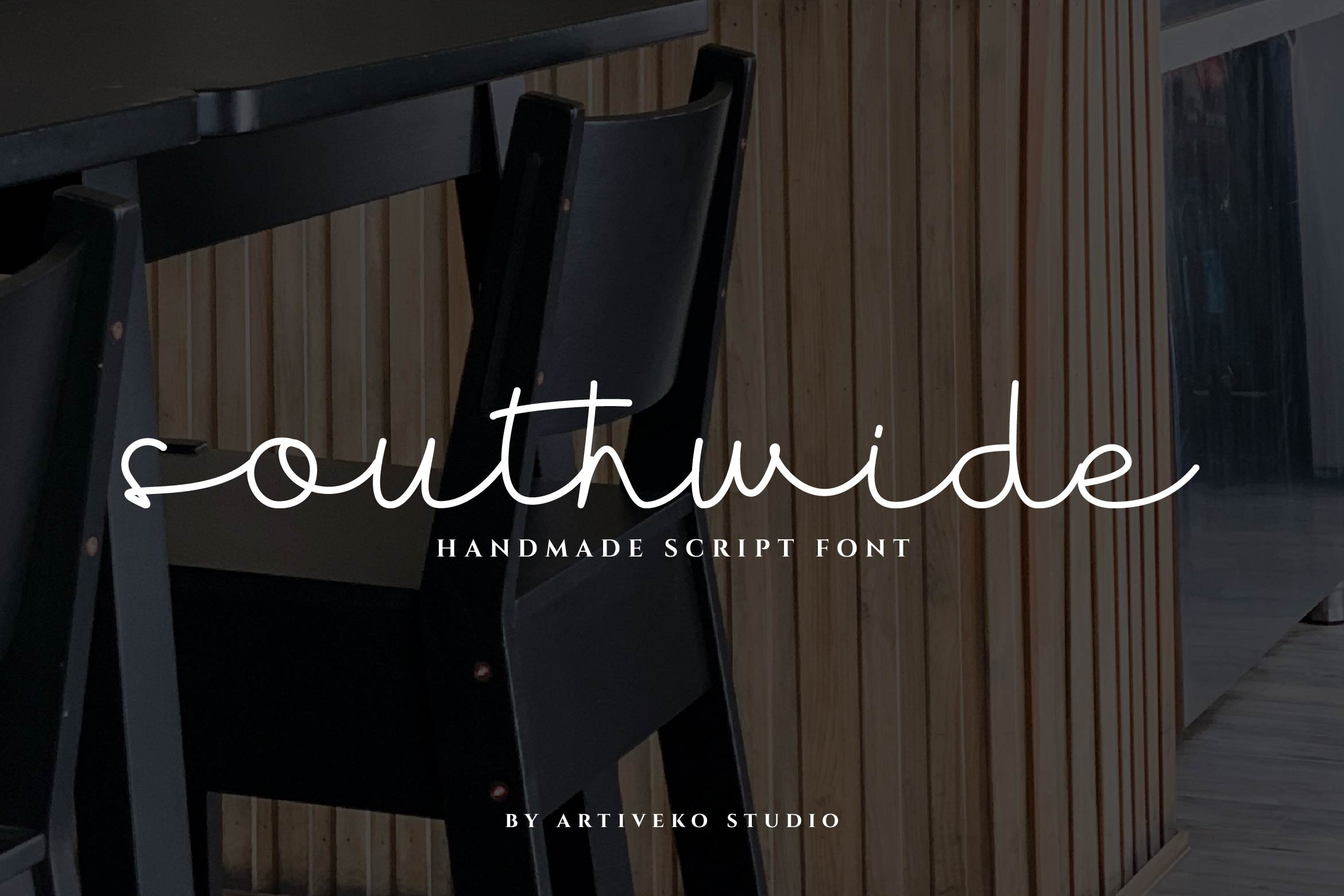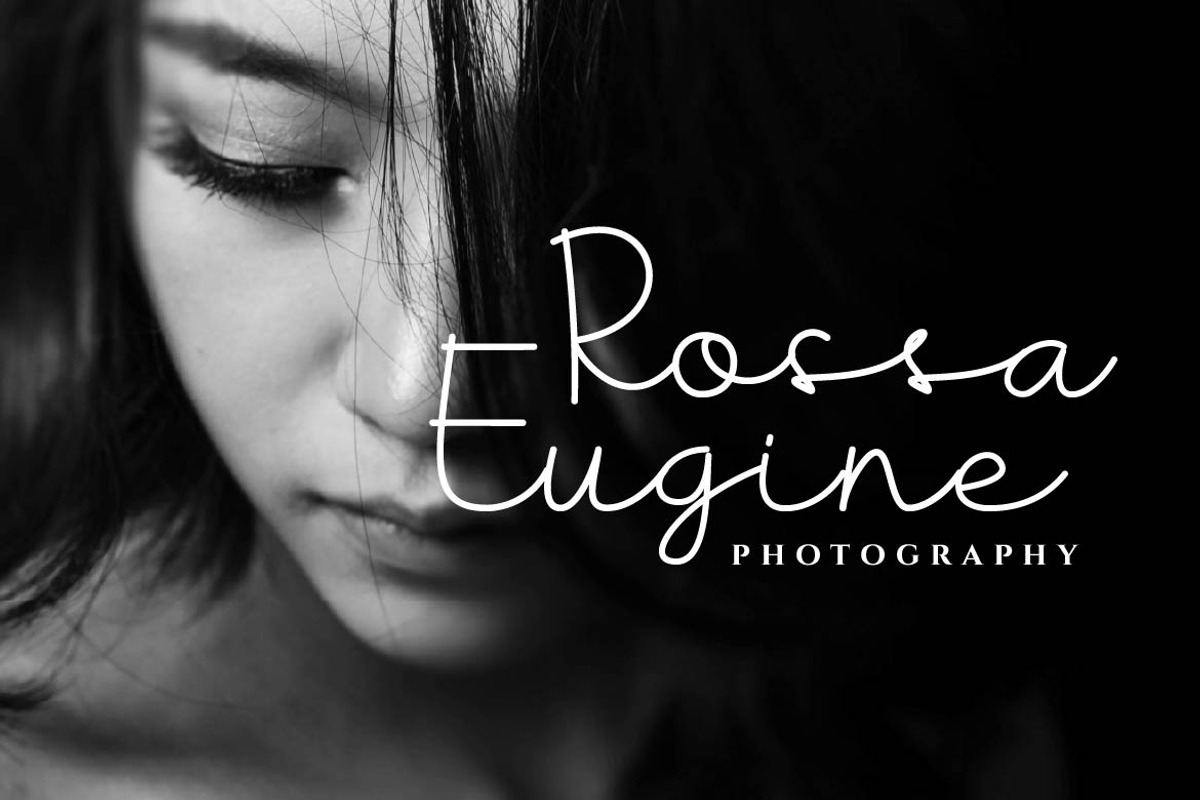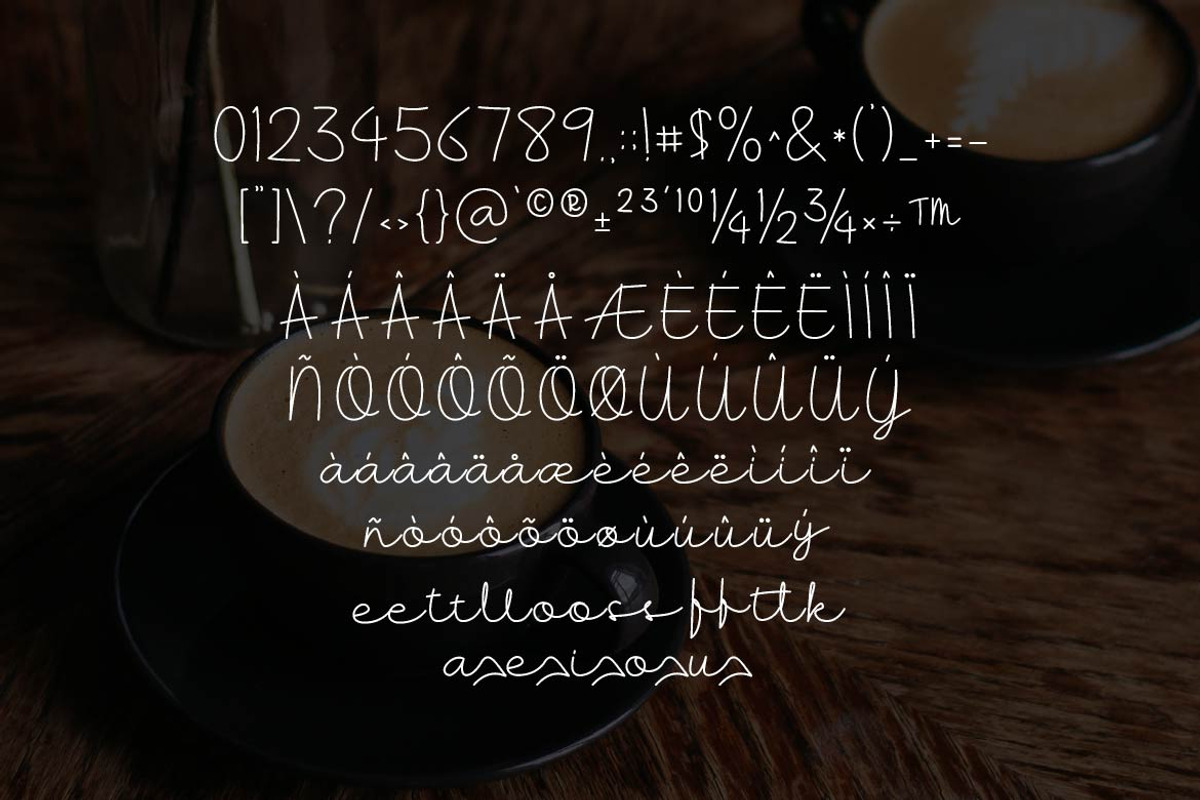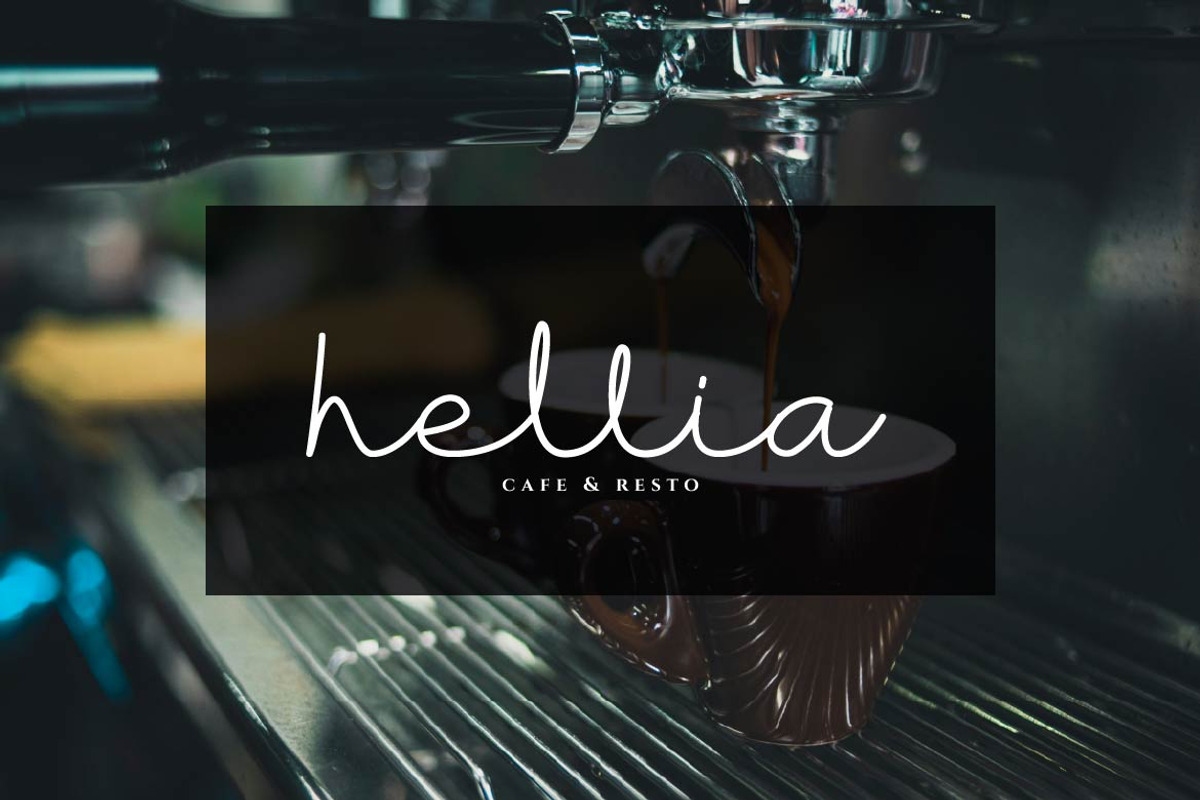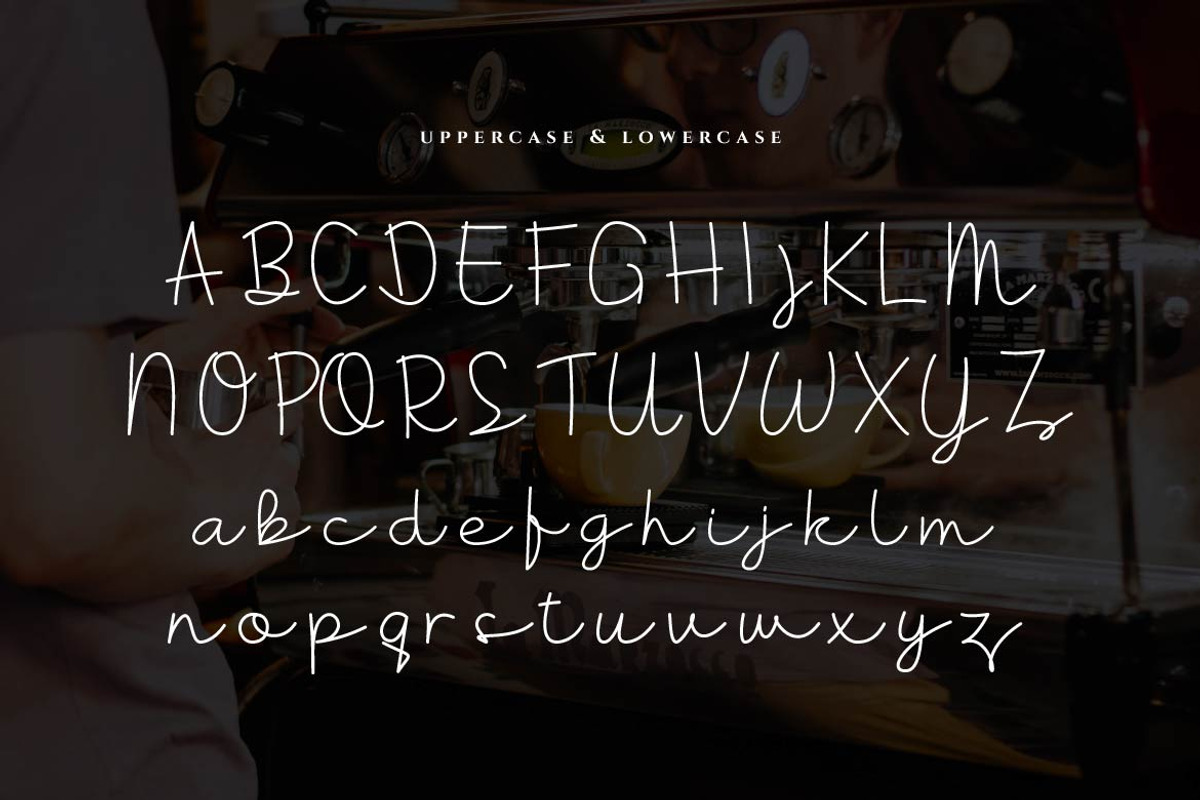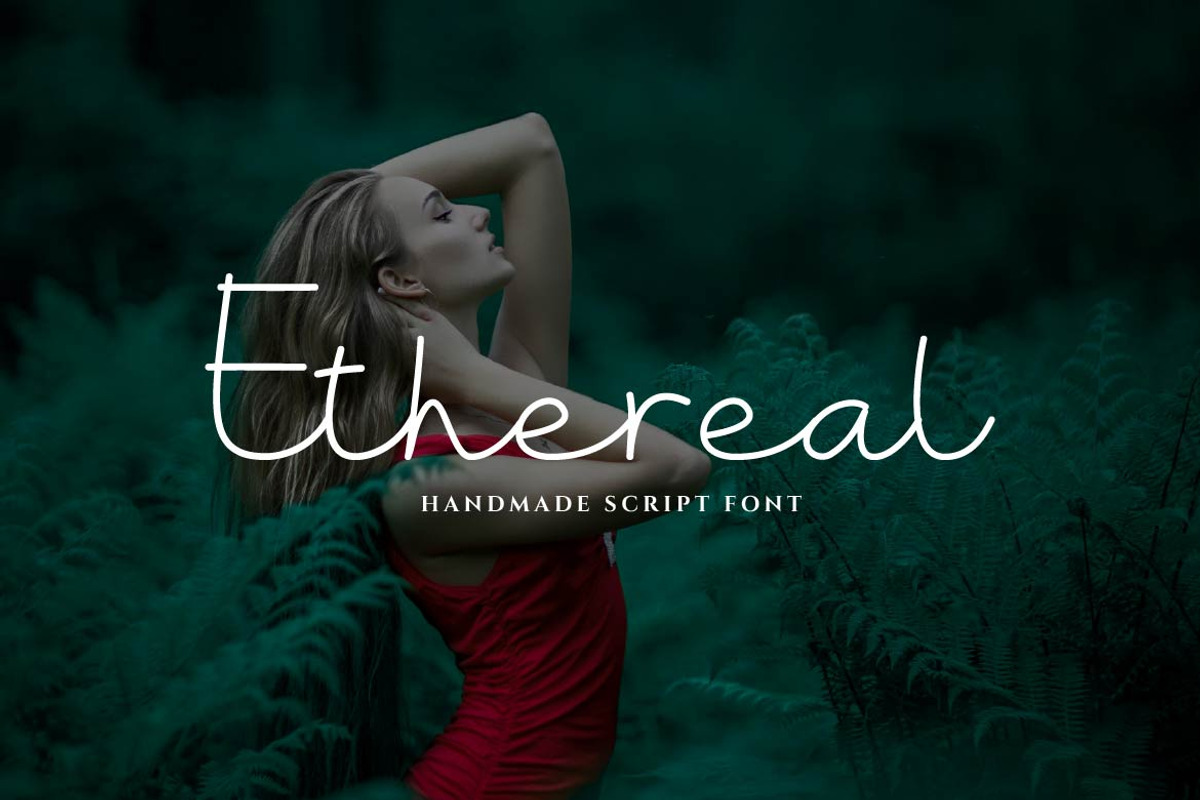
Southwide Elegant Script Font
Southwide is a minimalist script font designed for simplicity and elegance. With clean, flowing strokes and a handcrafted monogram feel, it’s perfect for logos, branding, wedding elements, stationery, and signature-style visuals. Each letter connects with soft curves and thoughtful spacing, offering a refined yet personal touch.